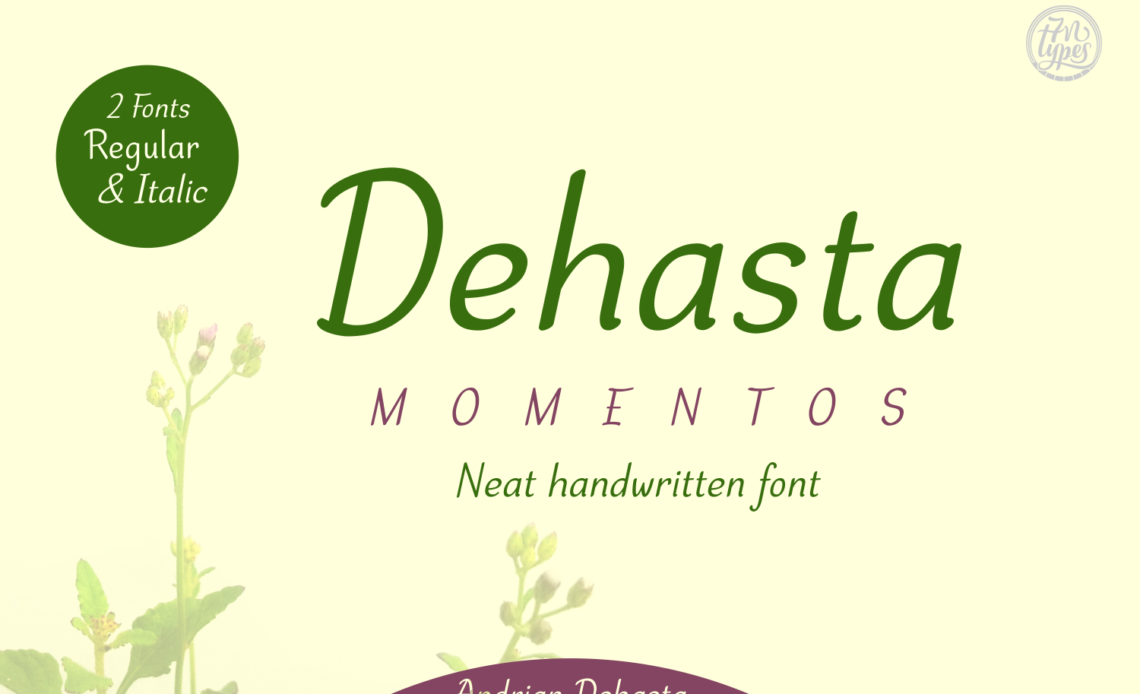
Dehasta Momentos Font
Welcome to the realm of Dehasta Momentos, a font collection that encapsulates the allure of handwritten elegance with its impeccable legibility. Inspired by the beauty of everyday penmanship, Andrian Dehasta has crafted a typeface that seamlessly blends sophistication and accessibility.
Dehasta Momentos is not merely a font; it's an invitation to express your creativity like never before. Its versatility allows it to thrive in both body text and display applications, effortlessly adapting to various design aesthetics. Whether you're crafting heartfelt letters, designing captivating social media posts, or creating eye-catching logos, Dehasta Momentos will undoubtedly leave a lasting impression.
Immerse yourself in the charm of Dehasta Momentos, a font that exudes genuine warmth and personality. Its fluid lines and graceful curves mimic the natural flow of handwriting, adding a touch of intimacy and authenticity to your designs. Let your words dance across the page with an elegance that captivates and engages your audience.
Dehasta Momentos is more than just a font; it's an extension of your creative expression. Its versatility empowers you to craft designs that resonate with your unique style and vision. From whimsical invitations to professional presentations, Dehasta Momentos effortlessly adapts to your creative needs, allowing your ideas to shine through.
Embrace the beauty of simplicity and make Dehasta Momentos your go-to font for projects that demand elegance and clarity. Its exceptional legibility ensures that your message is conveyed with utmost precision, while its captivating charm adds a touch of allure that sets your designs apart.